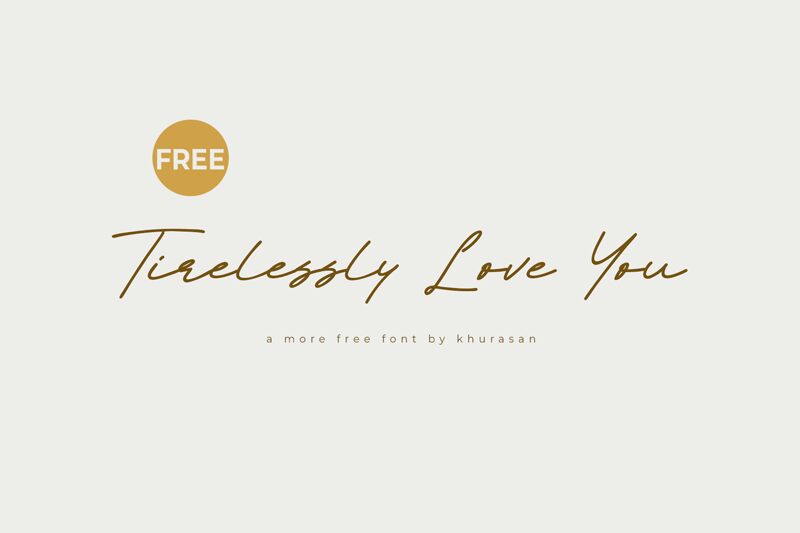
Tirelessly Love You
Tirelessly Love You, crafted by the talented font designer Khurasan, embodies the effortless elegance of handwritten script with a light and airy touch. The delicate strokes and fluid continuity of each letter evoke a sense of personal touch and intimacy. This font's aesthetic appeal lies in its balance between readability and artistic flair, making it an excellent choice for projects that require a humanistic touch.
The graceful nature of Tirelessly Love You lends itself beautifully to wedding invitations, heartfelt greeting cards, or any design endeavor that seeks to convey warmth and affection. Its handwritten style captures the essence of bespoke craftsmanship, ideal for brands looking to infuse their identity with a touch of individuality.
Whether you're aiming to add a splash of sophistication to your social media graphics or seeking that perfect script for personal branding, Tirelessly Love You offers versatility without sacrificing charm. This font not only speaks volumes in visual appeal but also ensures your message is delivered with a genuine whisper of love.